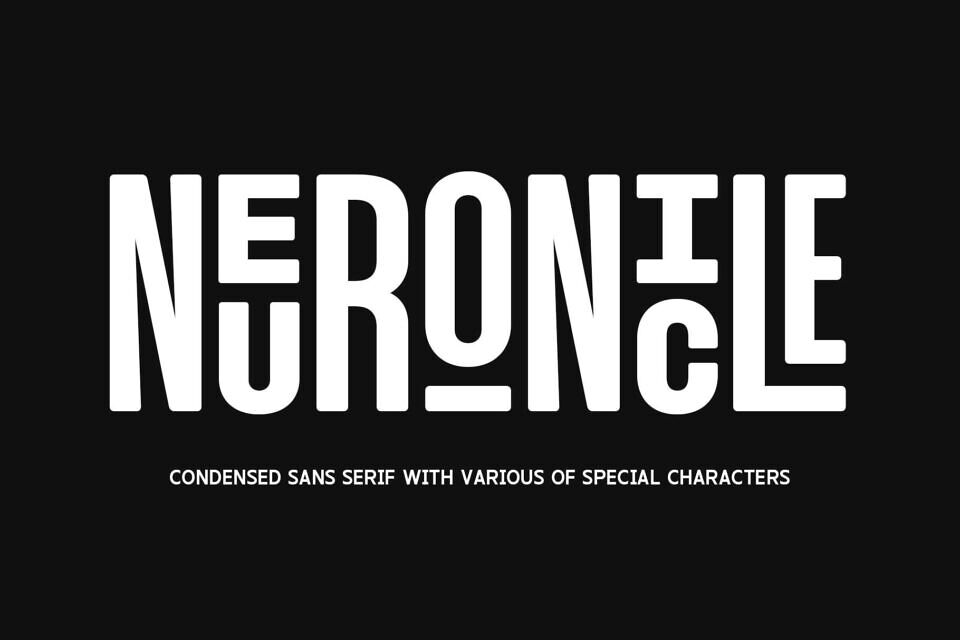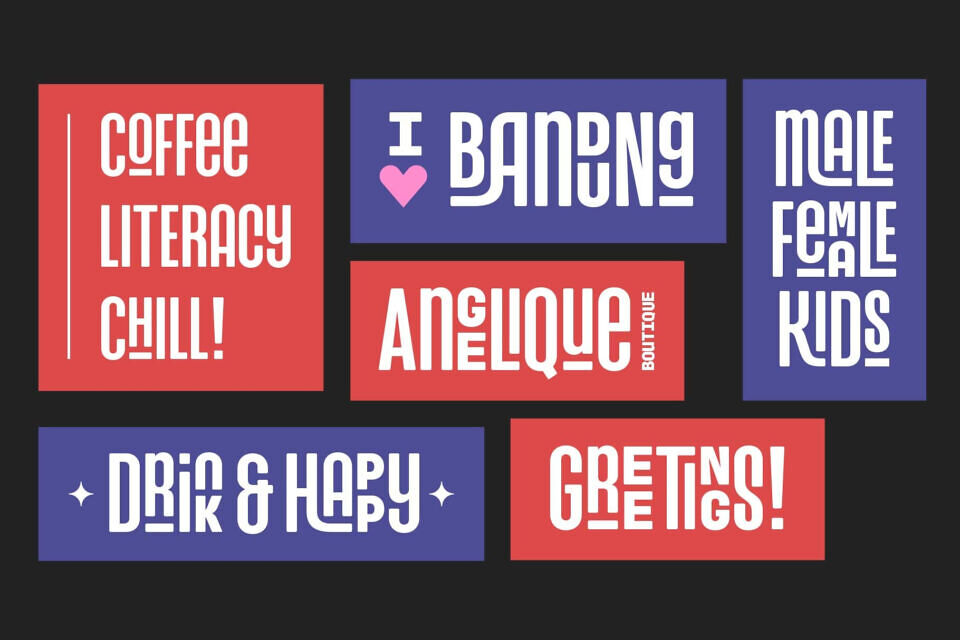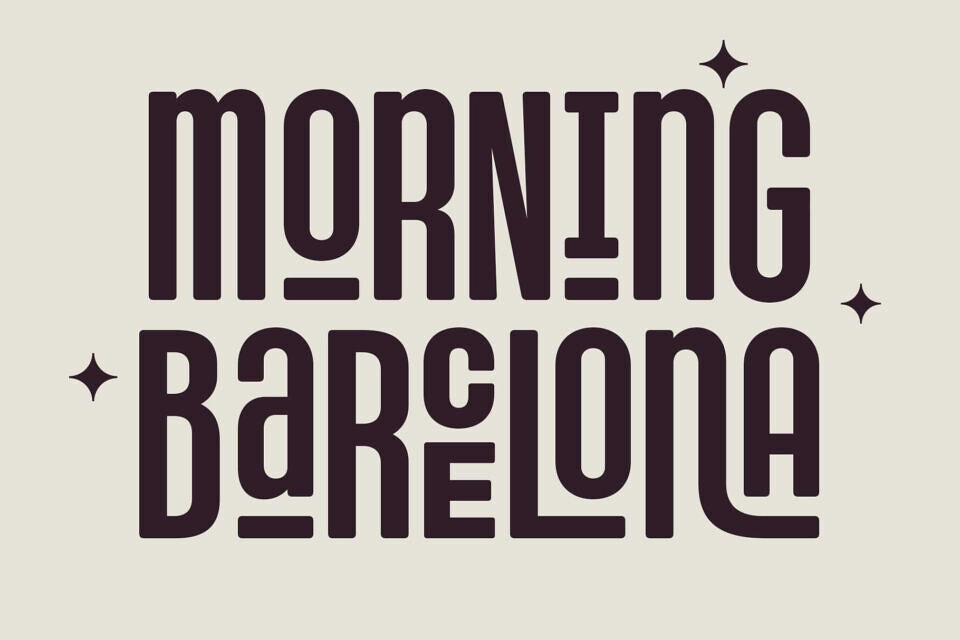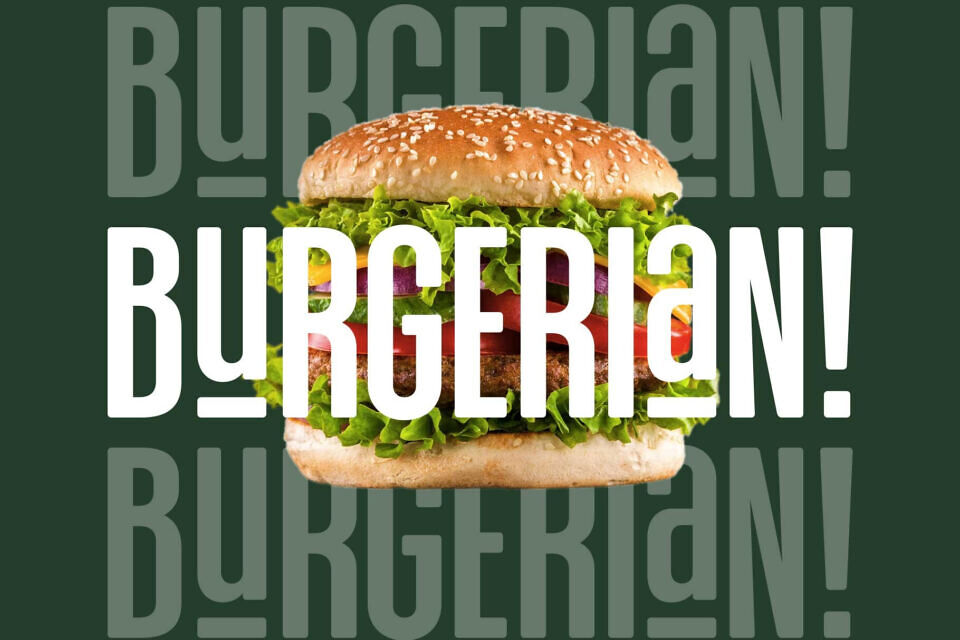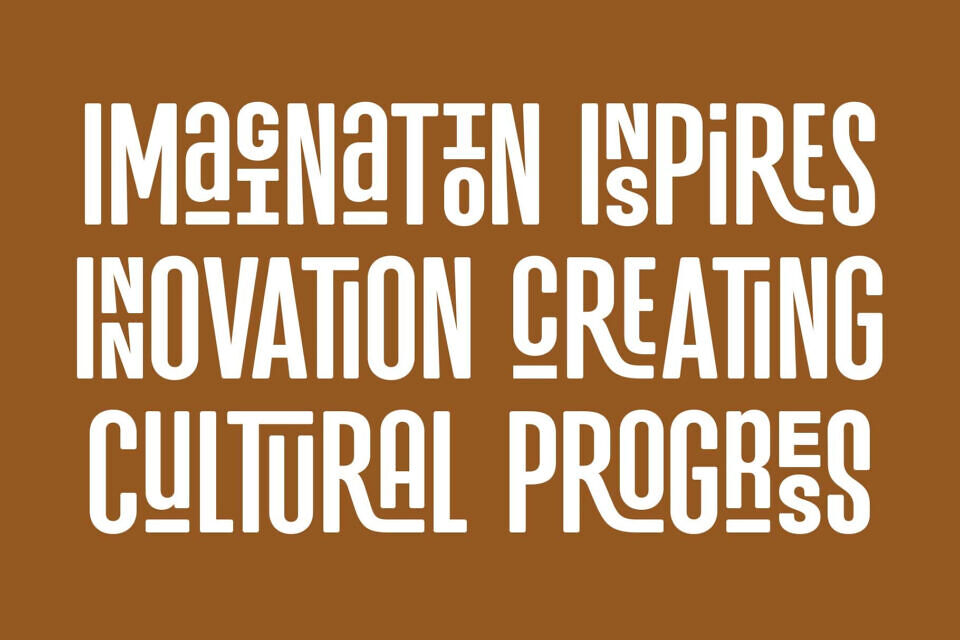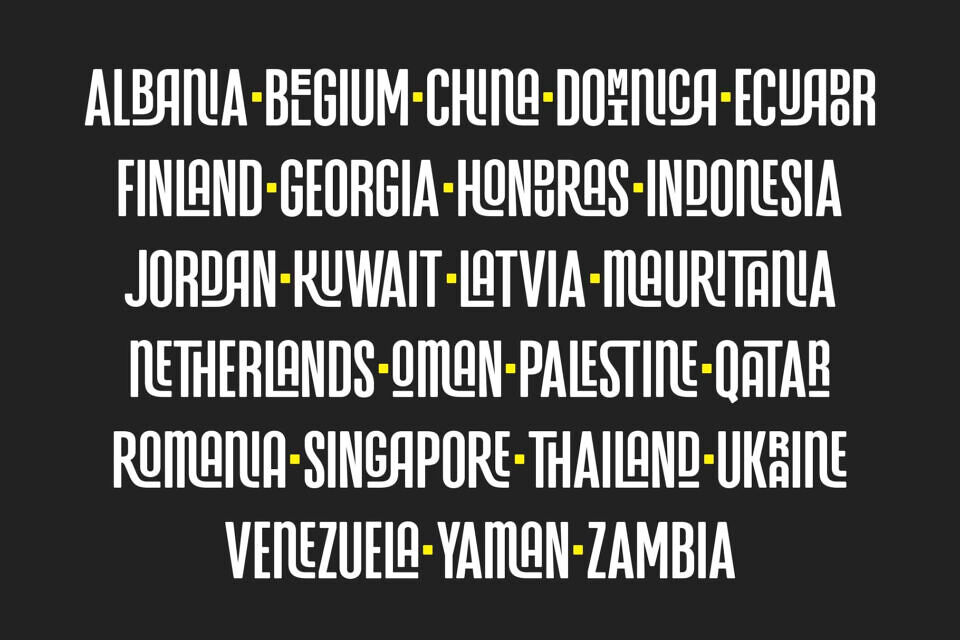
Neuronicle Font
Neuronicle is a condensed sans display font with a playful yet expressive personality, perfect for designs that call for boldness with a touch of elegance. Its bold weight and smooth, rounded corners create a relaxed, friendly vibe while maintaining a sense of modern sophistication, making it ideal for projects that need to stand out with style.
Carefully crafted for headlines and display use, Neuronicle is packed with creative potential. It includes an extensive range of ligatures, stylistic alternates, small caps, and stylistic sets (01–03), allowing you to mix and match elements to produce typography that feels truly unique and dynamic. Its versatility makes it perfect for everything from branding and advertising to editorial layouts and digital content.